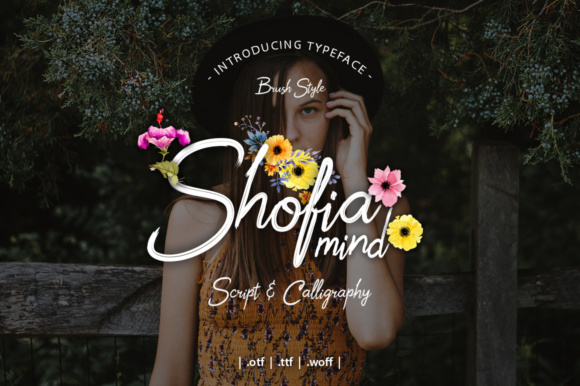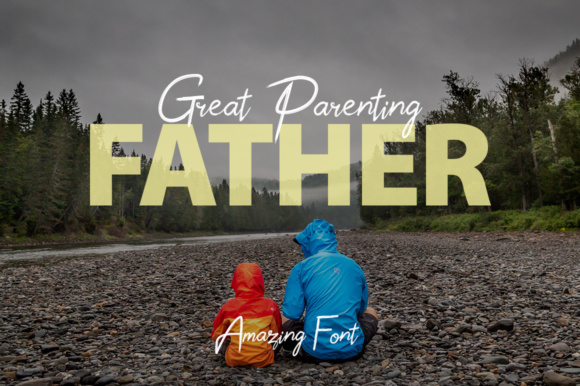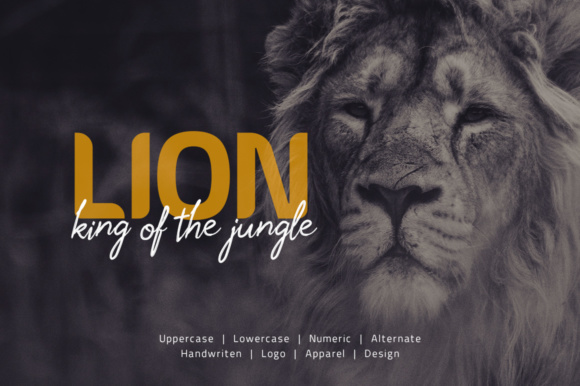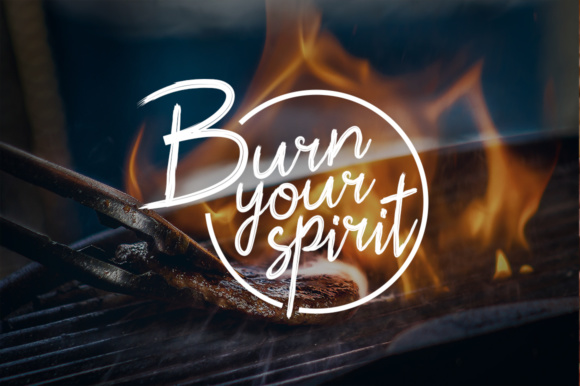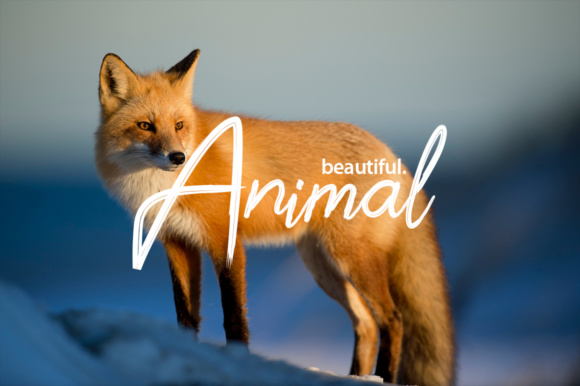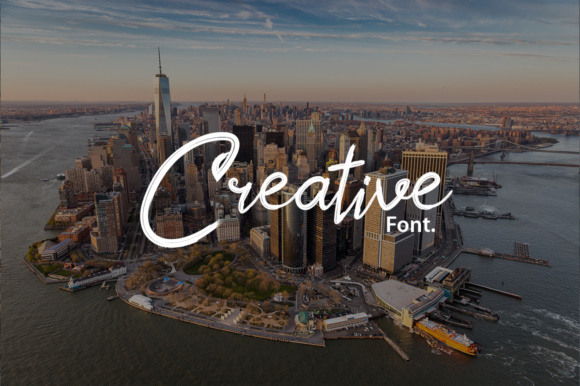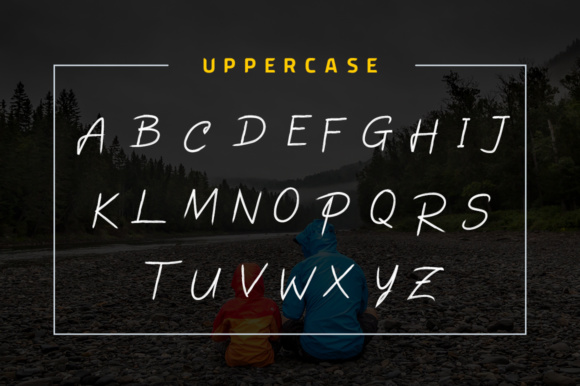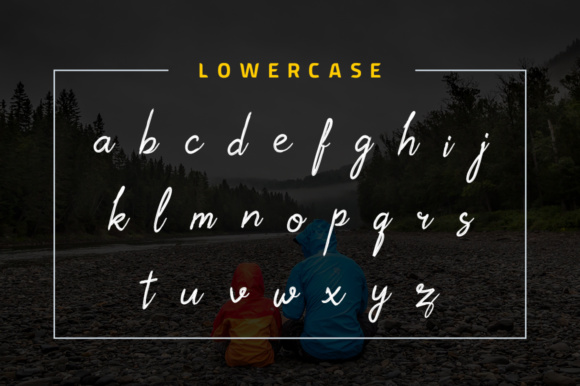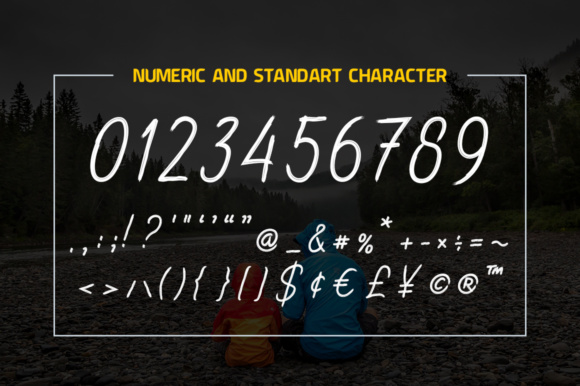
Shofia Mind Font
About Shofia Mind Font
The Shofia Mind is a stylish calligraphy script. It has a varying baseline which will give your design a classic look. It can be used for various purposes such as: logos, headings, signature, invitations, and much more!